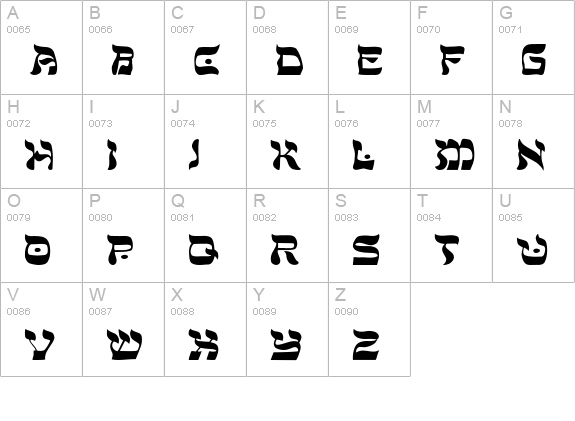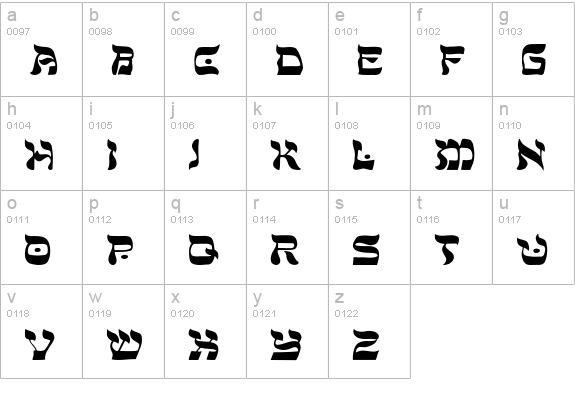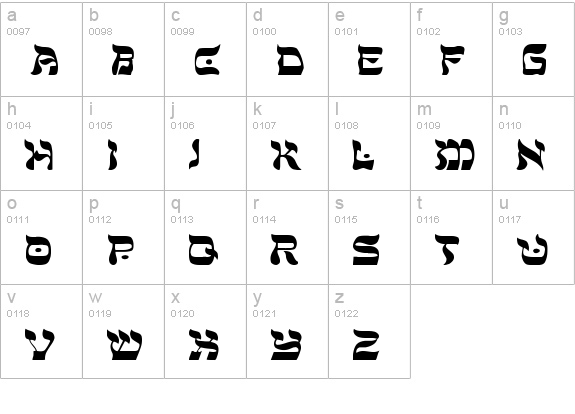
Peace- Font Details
Peace- font is a stunningly elegant and versatile typeface that exudes a sense of tranquility and harmony. Its graceful curves and graceful strokes create a serene and calming effect, making it the perfect choice for any design project that aims to evoke a feeling of peace and serenity. This font is not only visually appealing but also incredibly functional. Its clean and legible letterforms make it suitable for a wide range of applications, from branding and logo design to editorial layouts and web design. Whether you're working on a personal project or a professional assignment, Peace- font will undoubtedly elevate your work to new levels of sophistication and beauty. One of the most remarkable aspects of Peace- font is that it is freely available to download at FontsMarket.com. This means that you can easily access this exquisite typeface without any cost, allowing you to enhance your design projects without breaking the bank. The fact that it is free does not compromise its quality in any way; in fact, Peace- font rivals many premium fonts in terms of its elegance and versatility. Downloading Peace- font from FontsMarket.com is a breeze. With just a few clicks, you can have this remarkable typeface at your fingertips, ready to add a touch of tranquility and refinement to your designs. Whether you're a professional designer or a hobbyist, this free font is a valuable addition to your creative arsenal. Embrace the beauty of simplicity and serenity with Peace- font. Download it for free at FontsMarket.com and experience the transformative power of this exceptional typeface. Let your designs radiate peace and harmony, leaving a lasting impression on anyone who encounters them.